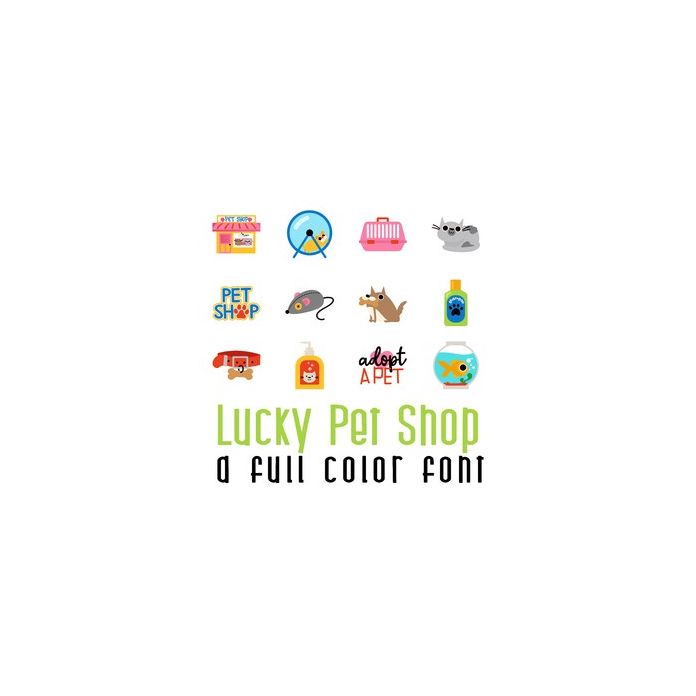
This adorable full-color doodlebat font features 28 pets and petshop items perfect for cards, crafts, gifts, decor, planner stickers, scrapbook pages and more! Glyphs are A-Z and 0 and 1.